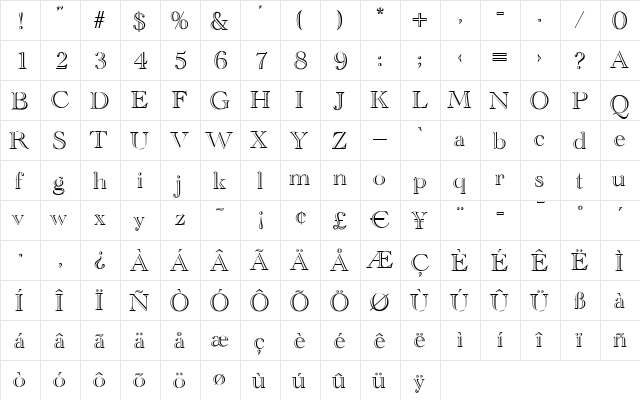
EmmaBecker Regular
Design Context for EmmaBecker Typeface
EmmaBecker takes a measured approach to typography — its balanced proportions and neutral character make it a reliable workhorse for both digital and print work.